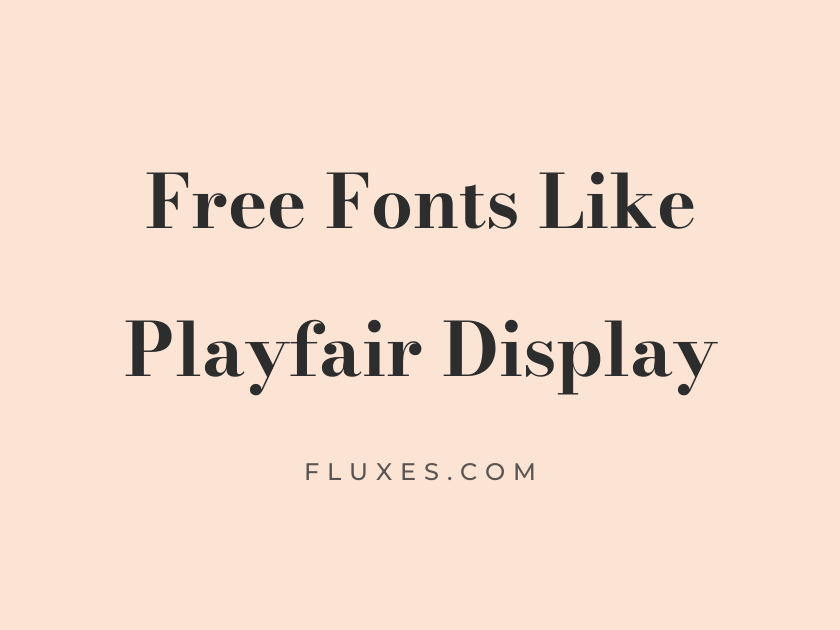
15 Best Free Fonts Similar to Playfair Display
Playfair Display has become the default choice for anyone who wants a serif with editorial polish, and for good reason: its sharp thin-to-thick contrast and generous curves give headlines a fashion-magazine sheen without licensing fees. But relying on one typeface for every project gets predictable fast, and Playfair Display can start to feel like the safe, expected pick rather than a considered one. The good news is that Google Fonts has a genuinely strong bench of free alternatives that share its high-contrast, display-serif DNA while bringing their own mood, whether that’s warmer, sharper, more geometric, or more restrained.
1. Bodoni Moda
Elegant headlines with razor-sharp contrast
Bodoni Moda leans harder into the classic didone contrast that Playfair Display only hints at, with hairline serifs that snap against thick vertical strokes. It’s an optical-size variable font, so it actually sharpens itself as you scale it up for display use, which is more than Playfair Display can claim. Choose it when a project wants to feel closer to Vogue than to a wedding invitation.
2. Abril Fatface
Bold statements for magazine cover lines
This one trades elegance for volume. Abril Fatface is a chunky, confident display serif built for a single word or short headline, and it reads beautifully even from across a room or at the top of a landing page.
3. DM Serif Display
Refined titles with a modern editorial voice
DM Serif Display sits closest to Playfair Display in overall proportion and mood, but it feels slightly calmer and more contemporary, with less flourish in its details. It works well as a near drop-in swap for anyone searching for a free Playfair Display alternative that still reads as premium and editorial.
4. Fraunces
Warm serif charm for storytelling brands
Fraunces brings a soft, almost hand-finished warmth that Playfair Display never attempts. Its optical sizes and adjustable “wonk” setting let it flex from crisp and formal to loose and characterful, which makes it one of the more versatile picks here.
Designers reaching for it often want something that feels bookish and considered rather than glossy, and it pairs naturally with earthy color palettes and craft-brand aesthetics.
5. Cormorant Garamond
Delicate serifs for poetry and fine print
Cormorant Garamond is thinner, quieter, and more literary than Playfair Display, drawing on old-style Garamond proportions rather than didone drama. It shines in long pull quotes and book-style layouts but can feel too faint at small sizes on screen, so reserve it for larger display text.
6. Marcellus
Classic elegance for timeless invitations
Marcellus has a restrained, almost architectural calm to it, with even strokes and none of the theatrical contrast that defines Playfair Display. It suits luxury branding, spa websites, and formal event materials where understatement matters more than flair.
7. Prata
Graceful serif detailing for upscale branding
Prata carries a similar sense of occasion as Playfair Display but with narrower proportions and a slightly more delicate touch in its serifs. It reads well in all caps for logotypes and short headers, though it can feel cramped in long passages of text.
8. Yeseva One
Playful serif energy for creative headlines
There’s a friendly, slightly quirky personality here that sets Yeseva One apart from the more serious tone of Playfair Display. Its rounded terminals and generous curves make it a fun choice for lifestyle blogs, bakeries, or any brand that wants elegance without stiffness.
9. Italiana
Understated luxury for fashion typography
Italiana is thin, tall, and unapologetically refined, built almost entirely for display use rather than body copy. It evokes the same fashion-editorial world as Playfair Display but strips away ornament, leaving something closer to a whisper than a statement.
10. Rozha One
Distinctive serif character for cultural headlines
Rozha One has a heavier, more sculptural presence than Playfair Display, with details that nod to Devanagari calligraphy alongside its Latin forms. It’s a striking choice for cultural, editorial, or arts-related headlines that want a serif with real personality.
11. Libre Caslon Display
Confident serif type for bold mastheads
Built specifically for large sizes, Libre Caslon Display takes Caslon’s old-style warmth and beefs it up for headline duty. It feels less didone and more historic than Playfair Display, a good option when a project wants gravitas without the fashion-magazine edge.
12. Petrona
Contemporary serif style for editorial layouts
Petrona offers a softer, more contemporary version of the same high-contrast idea, with rounder curves and a slightly less formal air. It’s flexible enough to run in both display sizes and body text, which makes it handy when you want one family to do double duty.
13. Spectral
Screen-friendly serif for digital publications
Spectral was designed explicitly for on-screen reading, so it holds up in long-form articles in a way many display-oriented Playfair Display alternatives don’t. Pair it with a bolder display serif for headlines and let Spectral handle the paragraphs.
14. Gilda Display
Compact elegance for names and titles
Gilda Display
Gilda Display is small in personality but useful in practice, a tidy, moderately contrasted serif that works nicely for names, credits, and short titles. It won’t carry a whole brand identity on its own, but it slots in cleanly wherever a supporting serif is needed.
15. Noto Serif Display
Reliable serif structure for global content
Noto Serif Display
Noto Serif Display offers sturdy, well-balanced letterforms with moderate contrast, less theatrical than Playfair Display but far more dependable across extensive language support. It’s a sensible pick for international or multilingual editorial projects that still want a serif display feel.
Most of these fonts are built for display sizes, so keep them for headlines, titles, and short callouts rather than long body copy.
For paragraphs, pair a display serif like Abril Fatface or Rozha One with a plain, humanist sans-serif or with a screen-friendly serif such as Spectral.
Test high-contrast options like Bodoni Moda and Cormorant Garamond at your actual body size before committing; thin hairlines can disappear on lower-resolution screens.
If you want a near-instant swap for Playfair Display without changing the overall mood of a design, start with DM Serif Display or Petrona.
Any of these free Google Fonts can carry the same editorial confidence Playfair Display is known for, while giving a project its own distinct voice. Try a few side by side in your actual layout, since the right choice usually comes down to how the details feel at your specific sizes and colors rather than how a font looks in isolation.